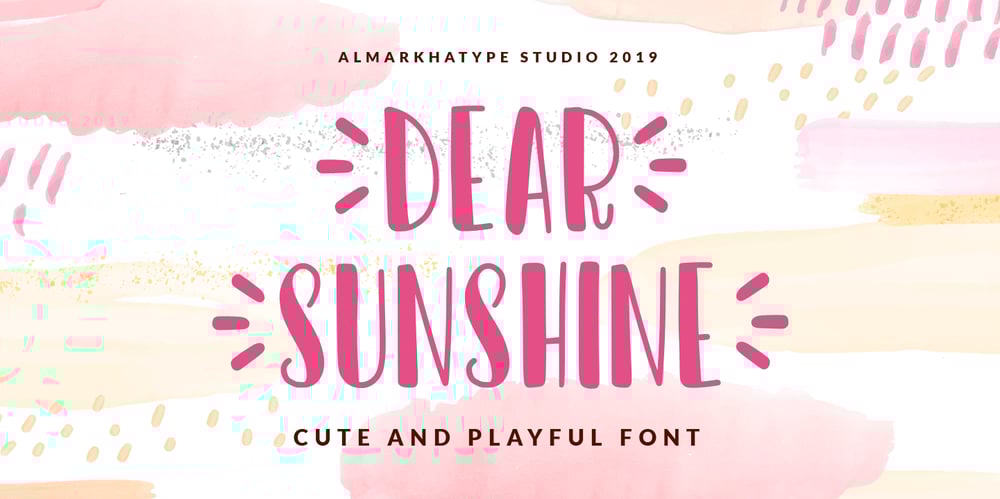
Dear Sunshine Font Family was designed by Abdul Malik Wisnu and published by Almarkha Type. Dear Sunshine contains 1 styles and family package options. Dear Sunshine is sweet and playful, but also elegant. This versatile script font has a wide range of applications ranging from greeting cards to kids’ crafts, and is guaranteed to add a sweet touch to your next design.Thank You.